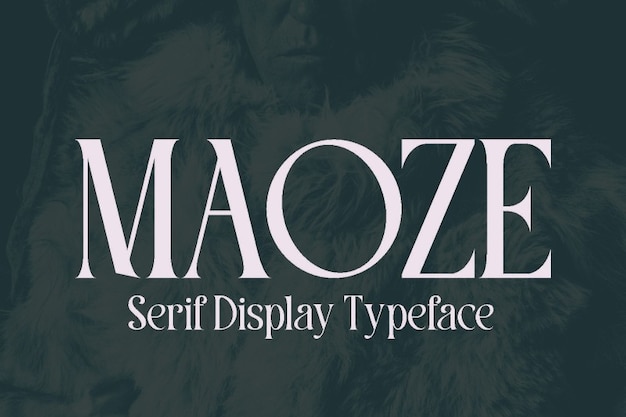
Maoze Font
Maiko Hatta
"Maoze" is a versatile font that skillfully balances thick and thin strokes, creating a striking visual contrast. Its basic design ensures clarity and readability, making it suitable for a wide range of applications, from branding to editorial layouts. With its modern aesthetic, "Maoze" brings a touch of sophistication to any project while remaining accessible and functional.